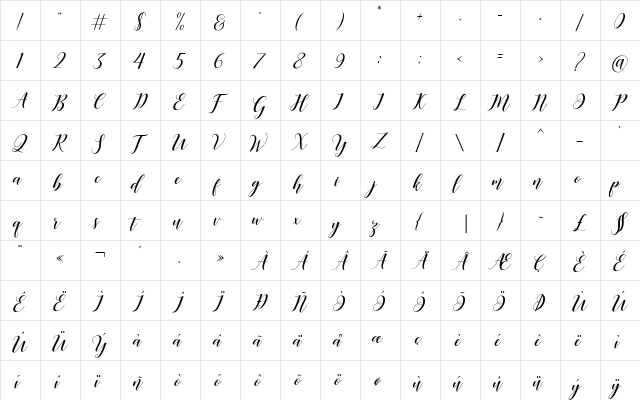
Desyanti Regular
| Foundry | Amarlettering_kamaruddin |
| Designer | Amarlettering_kamaruddin |
Design Context for Desyanti Typeface
Desyanti is a composed and adaptable typeface that performs quietly and consistently across a wide range of design contexts.